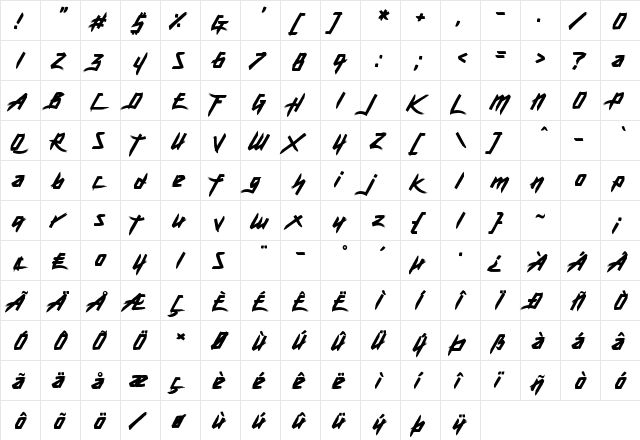
Death Knell Regular
Design Context for Death Knell Typeface
Death Knell leans into the macabre with letterforms designed to disturb and intrigue in equal measure.
Ideal for Halloween projects, horror film titles, haunted house signage, and dark editorial design.
Font Pairing: Pair with a clean neutral sans-serif for body copy to let Death Knell's character lead without overwhelming the composition.
Pro Tip: Death Knell works best as a headline or focal element. Pair it against plain, neutral body text to amplify the contrast.